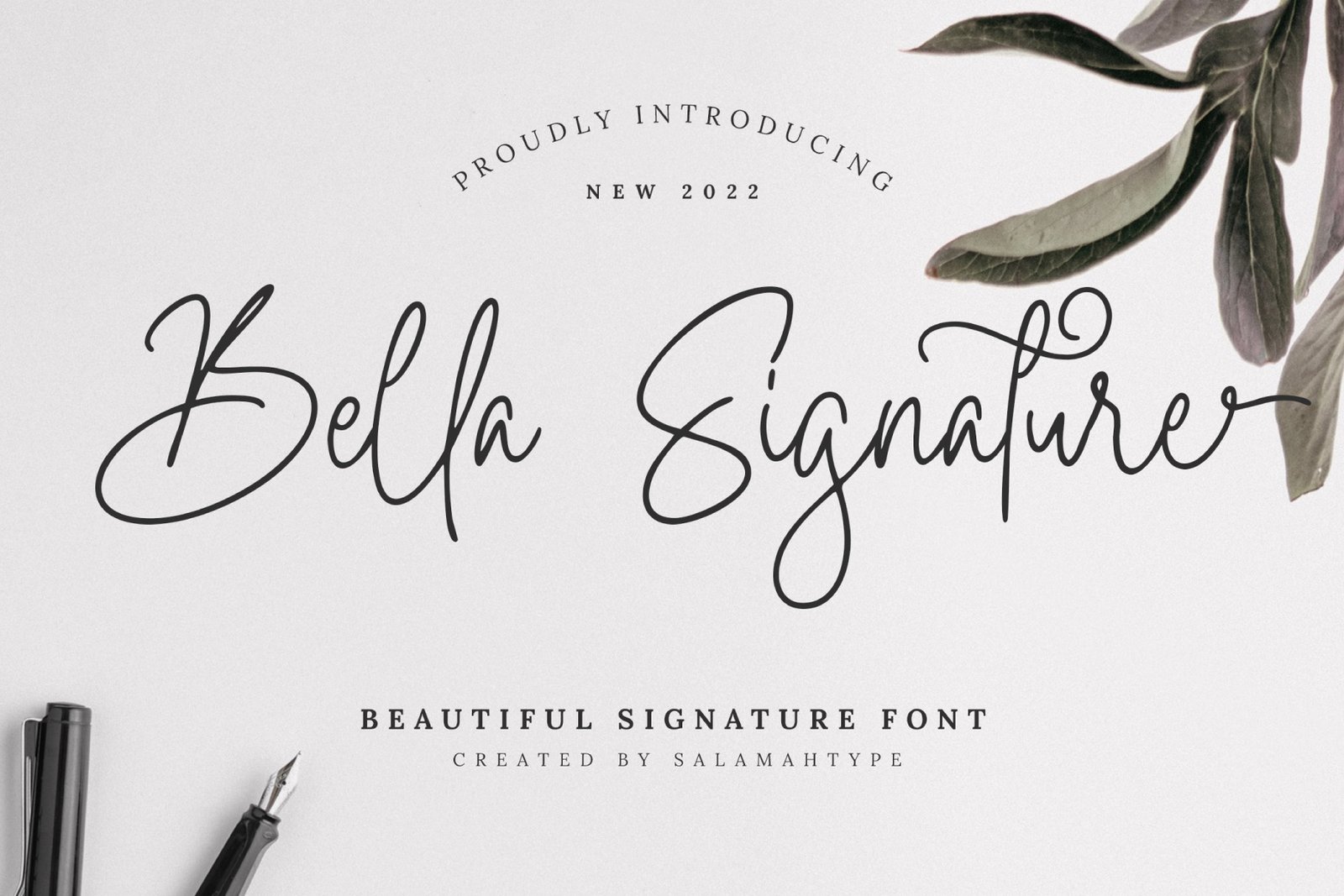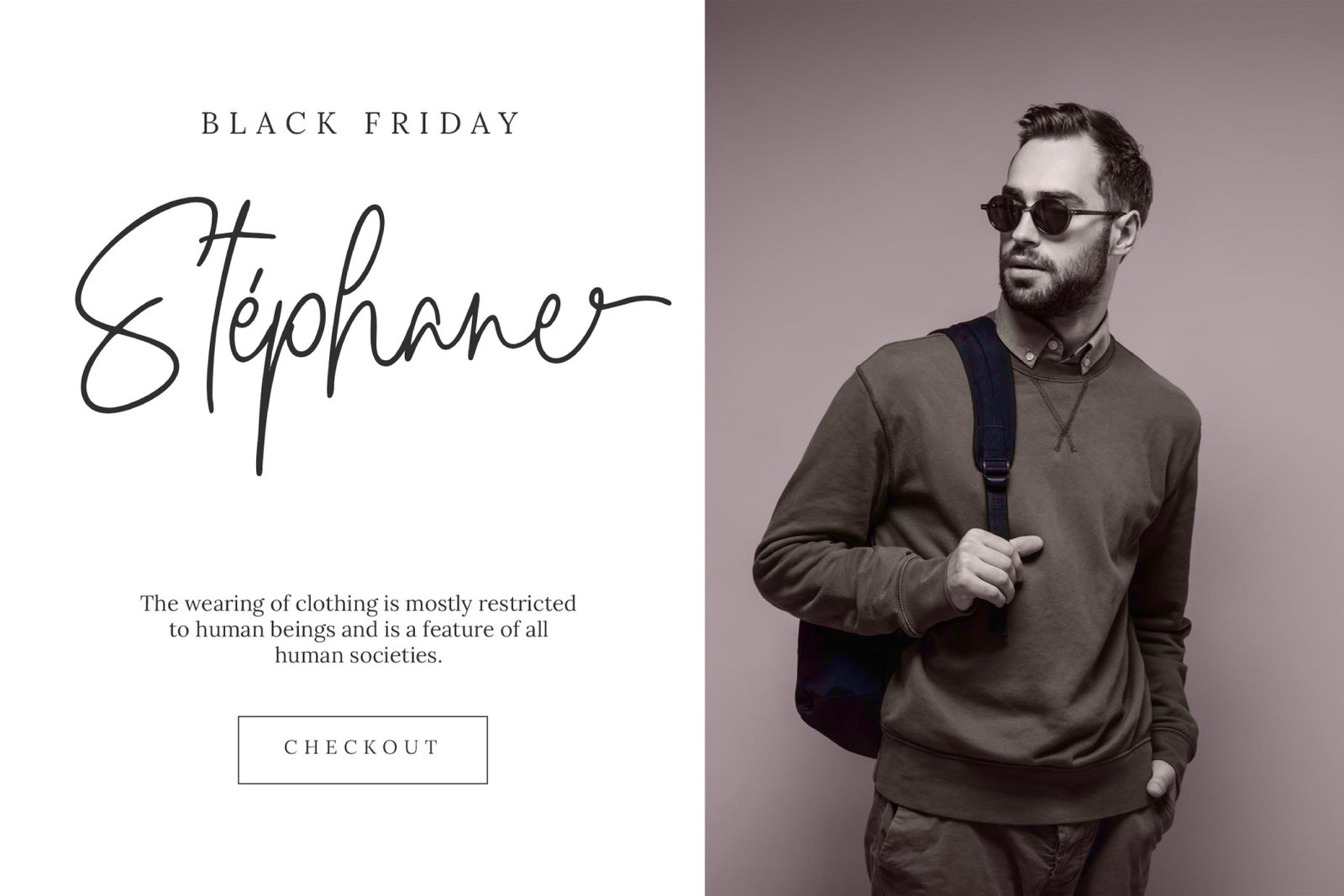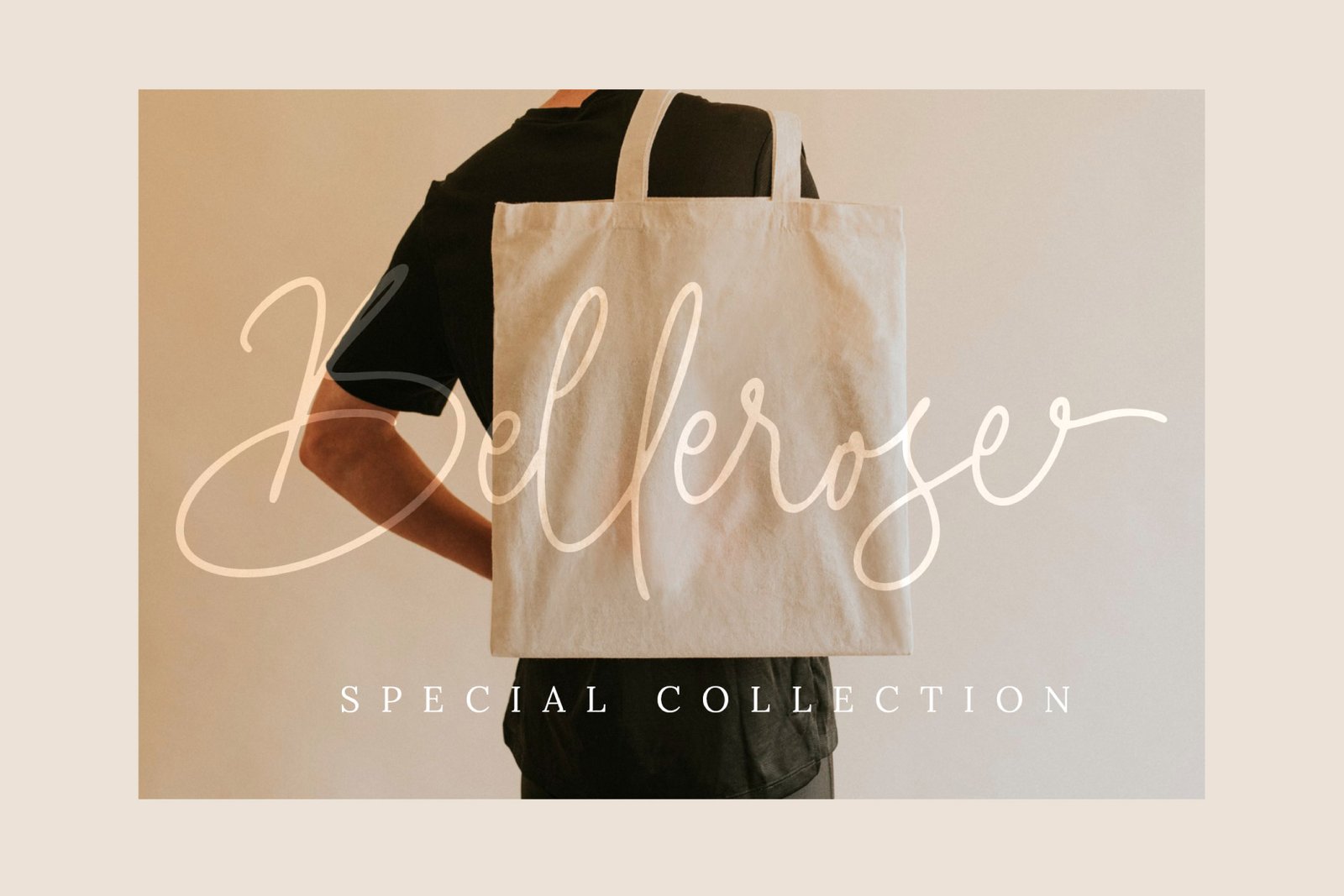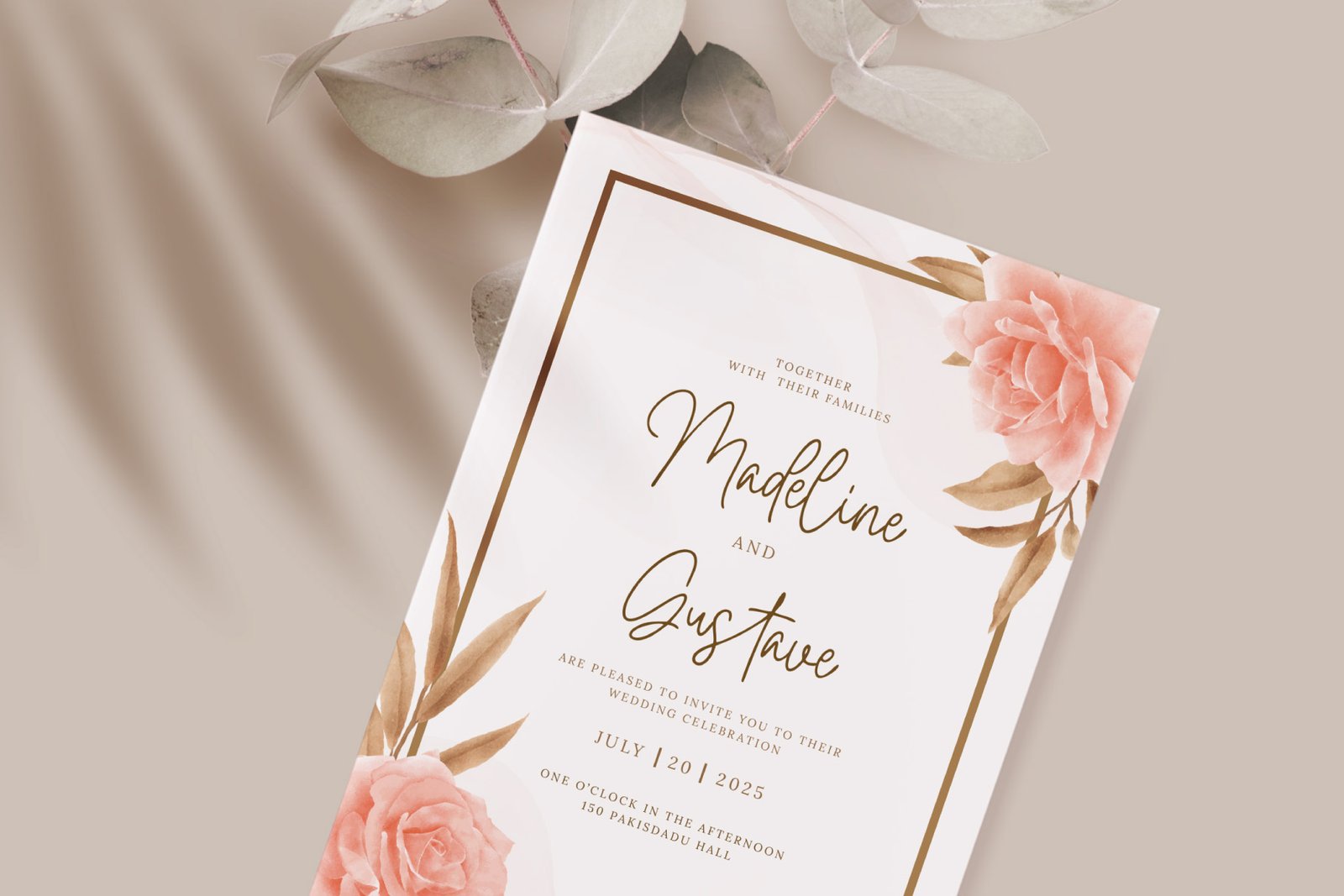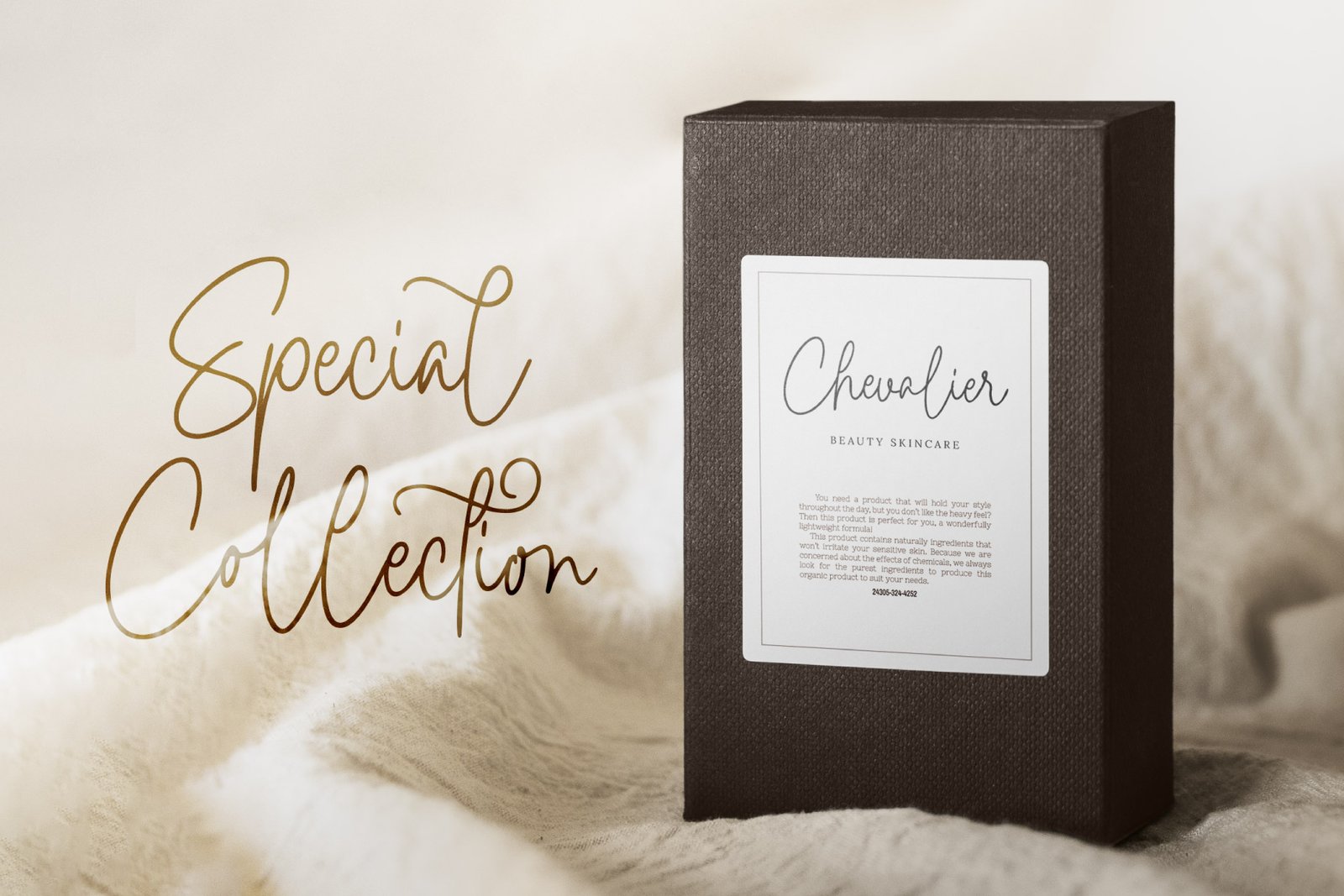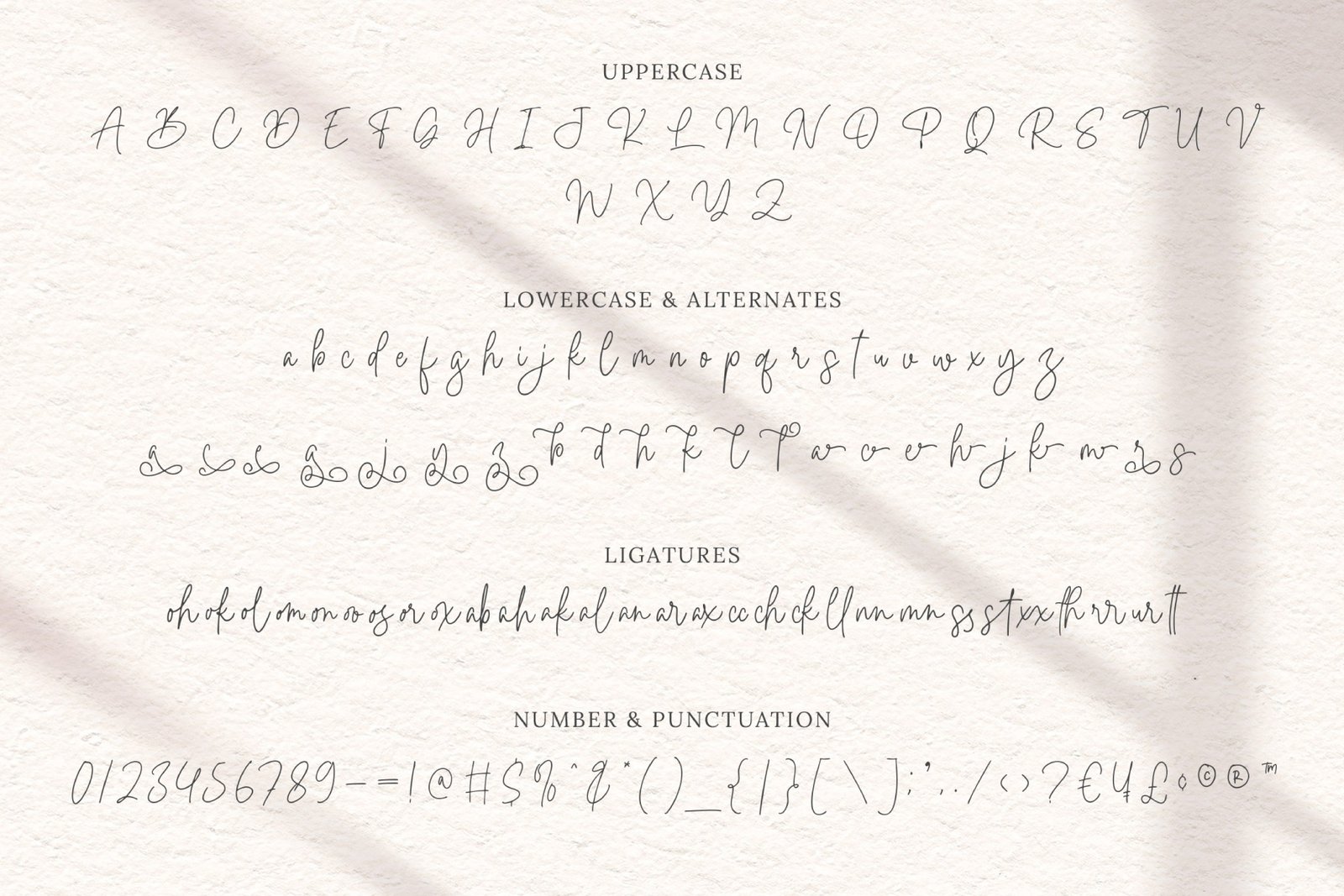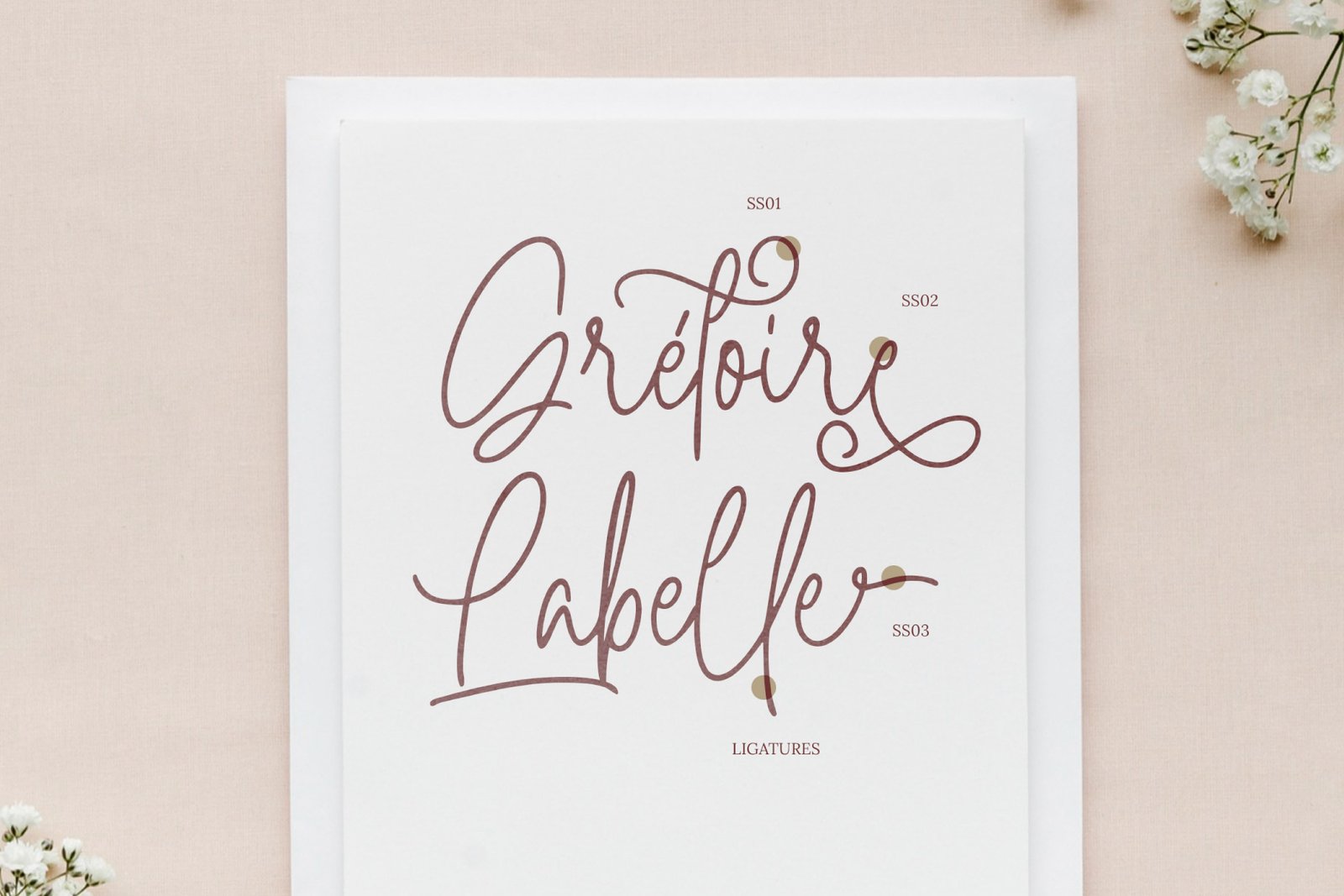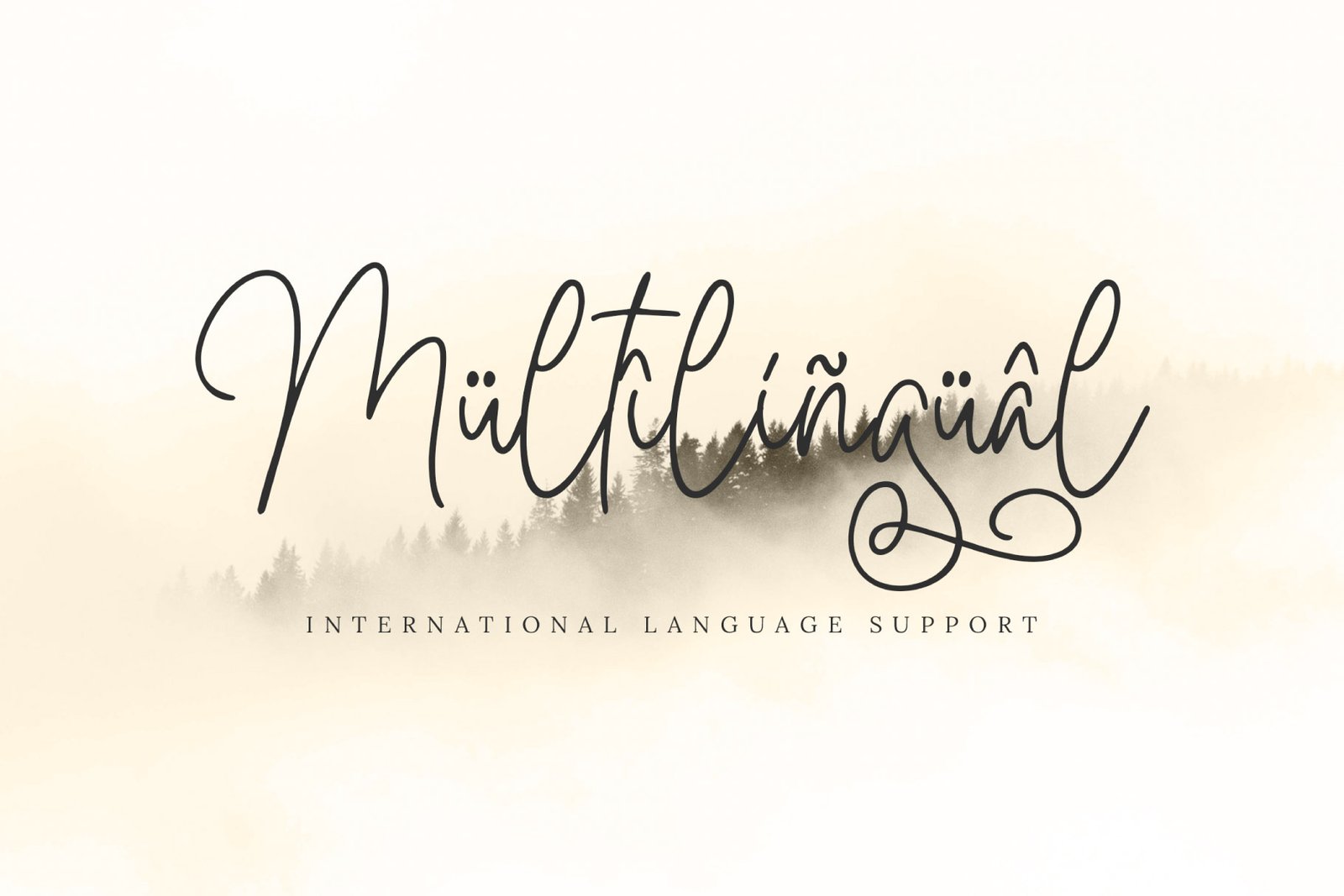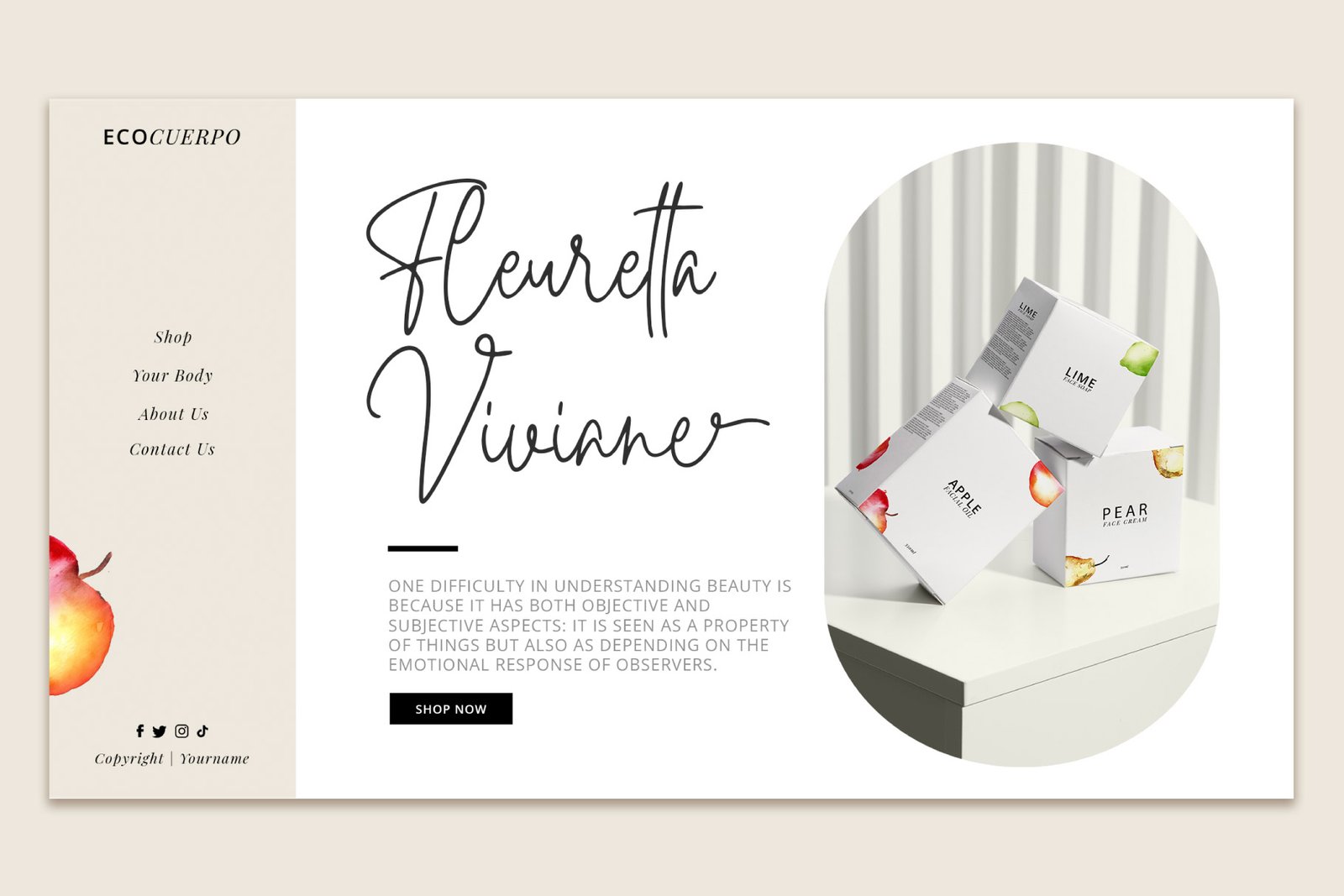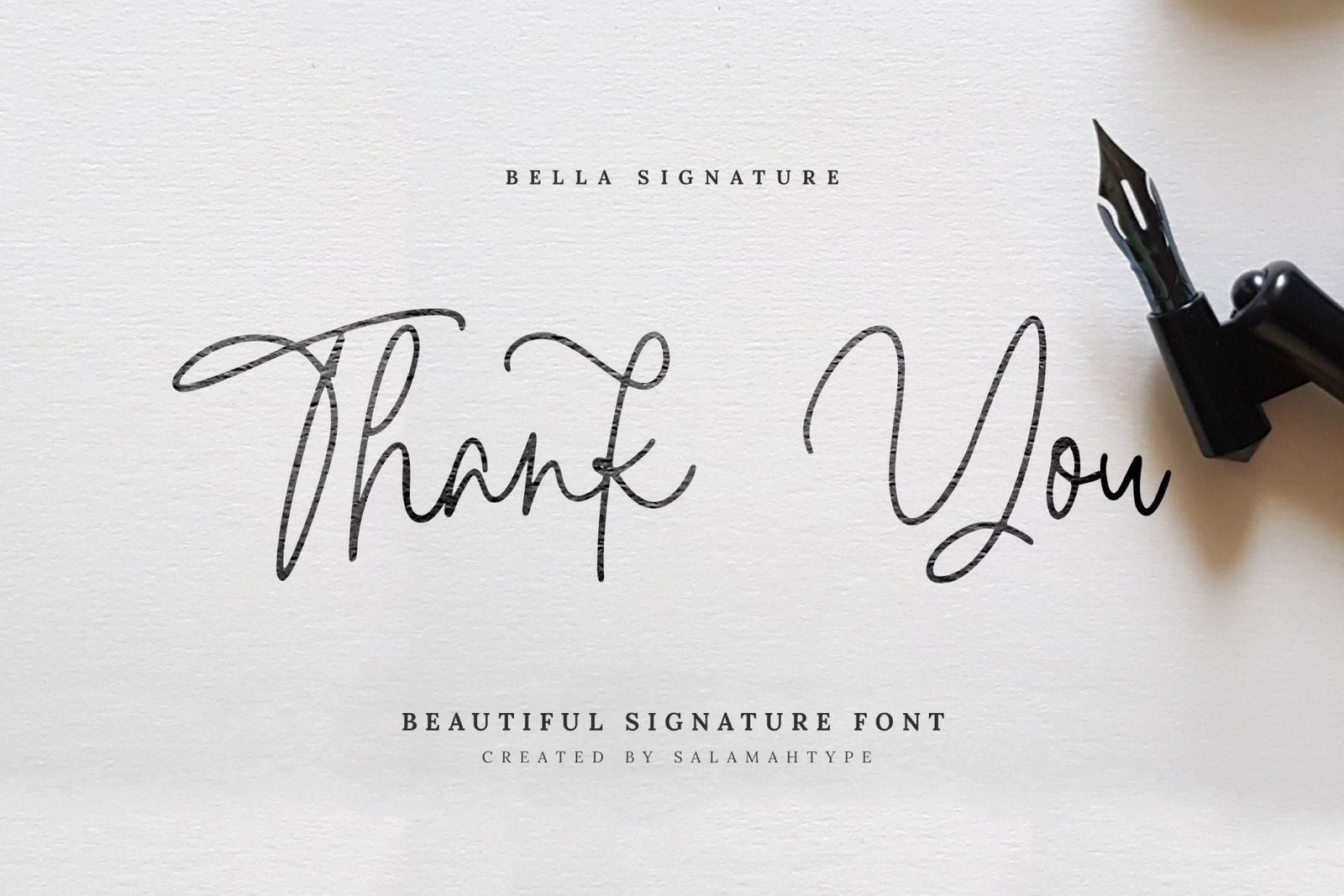
Introducing our font “Bella Signature” – clean and elegant handwritten script.
Bella Signature is perfect for wedding invitations, websites, branding projects, logo, social media posts, advertisements, product packaging, product designs, label, photography, watermark and anything you want!
Features :
- Uppercase & lowercase
- Punctuation & symbol
- Alternates
- Ligatures
- Multilingual characters